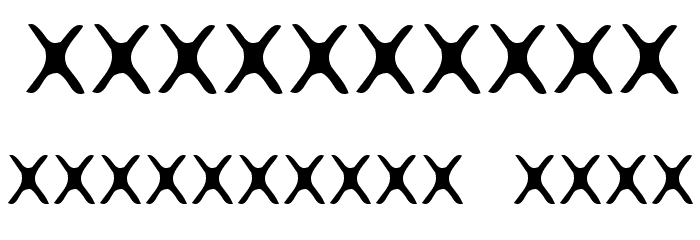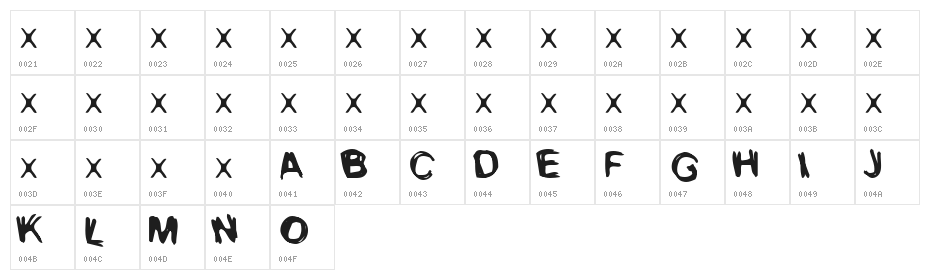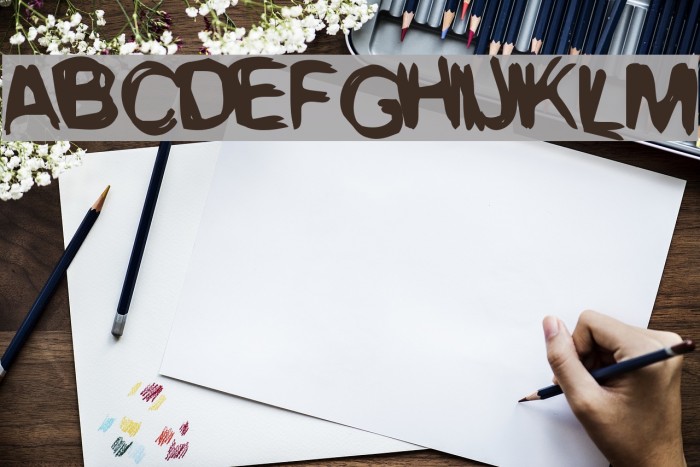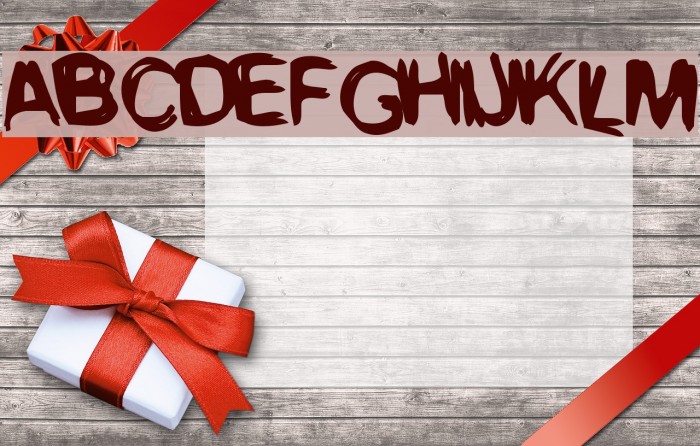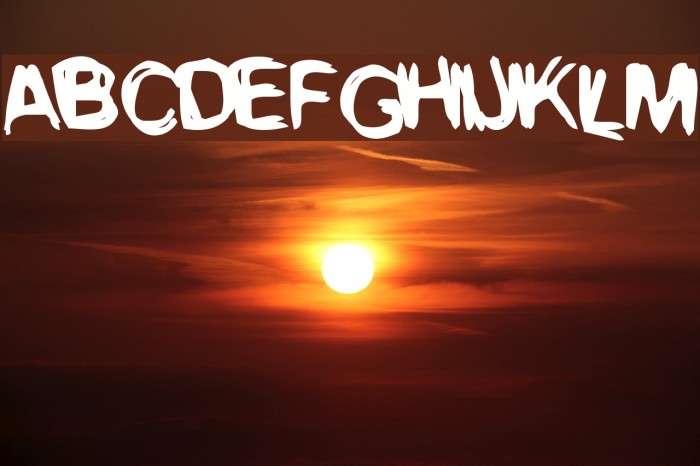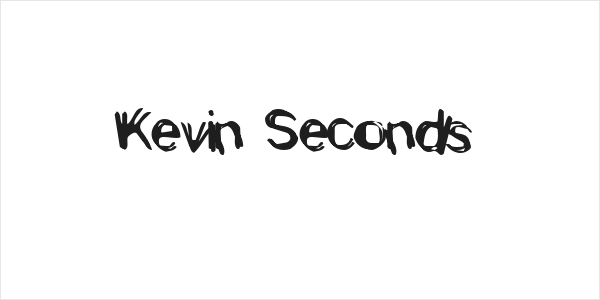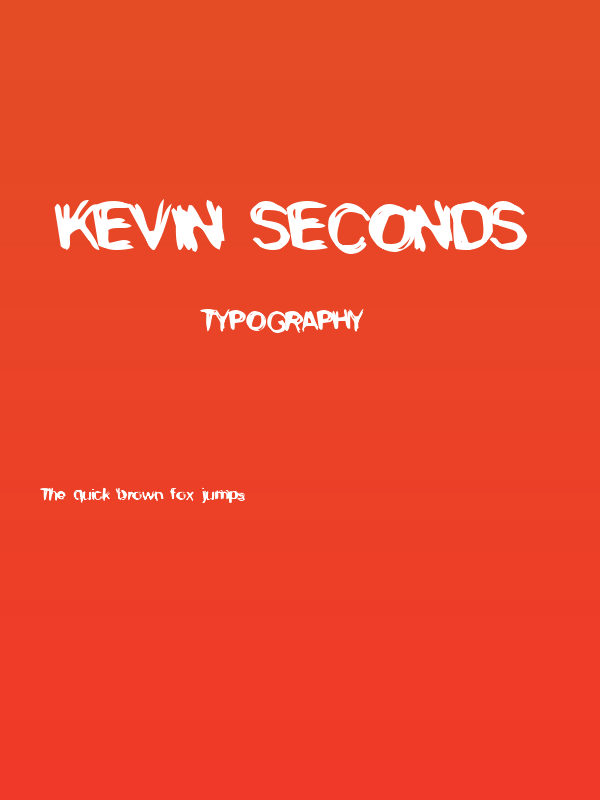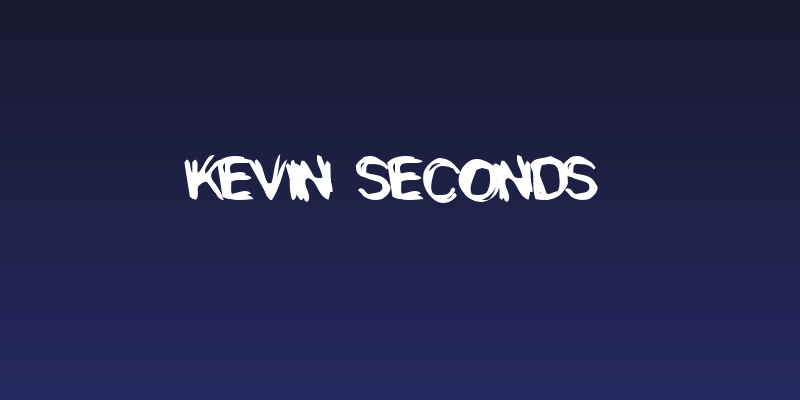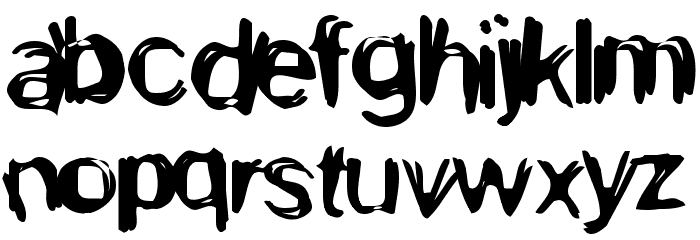
Kevin Seconds Font
Kevin Seconds Description
This font exhibits a bold and dynamic style with a hand-drawn appearance, characterized by irregular and expressive strokes. The letters are thick and have a playful, almost graffiti-like quality, making them stand out with a strong visual impact. The uppercase and lowercase letters maintain a consistent style, with exaggerated curves and angles that add to the font's energetic feel. The numbers and special characters follow the same design principles, ensuring a cohesive look across all characters. This font's unique style makes it suitable for projects that require a bold and artistic touch.
Proposed ProjectsIdeal for posters, album covers, street art designs, and any project needing a bold, artistic flair.